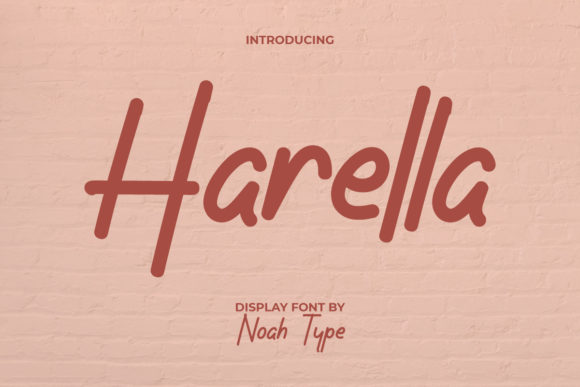
Introduce yourself to Harella Font, an impeccable script font born from the creative minds at NoahType. This enchanting font is meticulously designed to bestow a natural charm upon your creative endeavors, evoking a sense of authenticity and grace.
Designed with meticulous care, Harella Font exudes an organic flow, reminiscent of handwritten strokes. Its delicate curves and subtle variations add a touch of elegance and artistry to any project, making it an ideal choice for those seeking a personal, heartfelt touch.
Unleash your creativity with Harella Font and explore the boundless possibilities it offers. From coffee shops' inviting signage to the covers of children's books, from captivating movie titles to heartfelt invitations, this font effortlessly adapts, enhancing your designs with its timeless appeal.
Immerse yourself in the world of Harella Font and let its allure captivate you. Discover the beauty of organic typography and experience the joy of creating designs that resonate with authenticity and artistry.